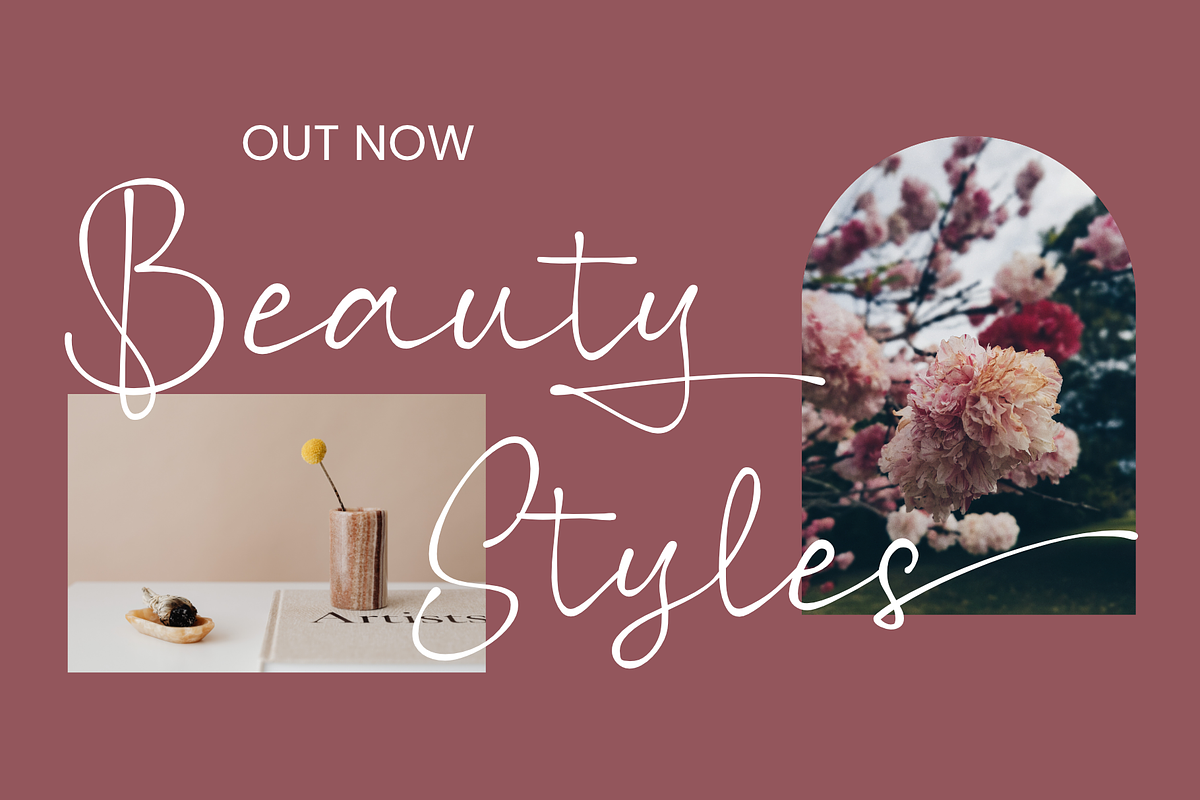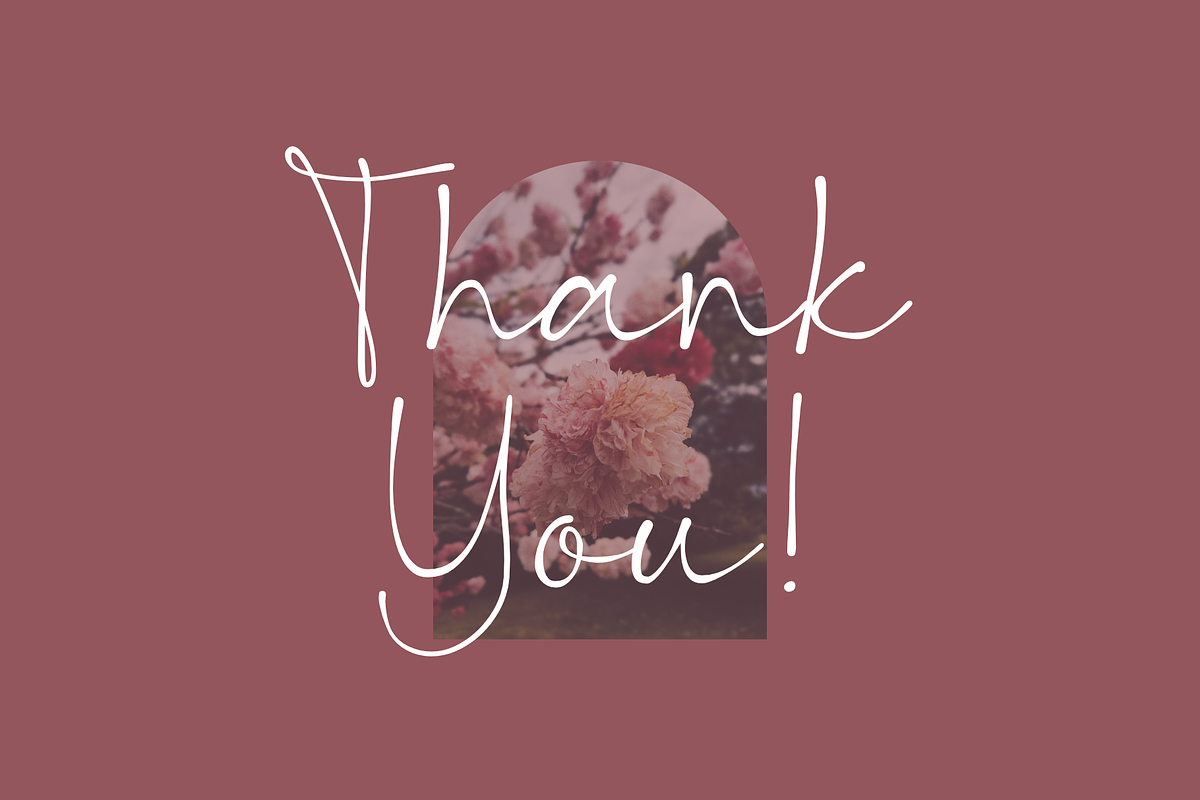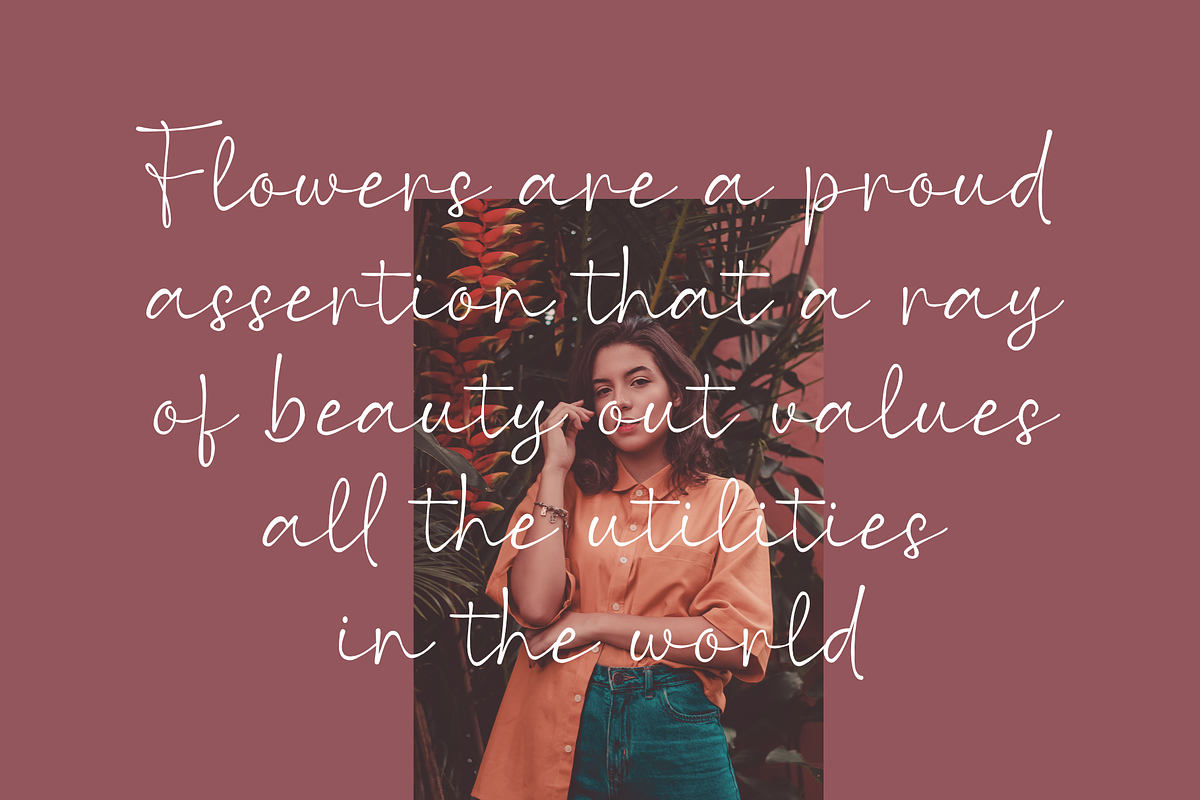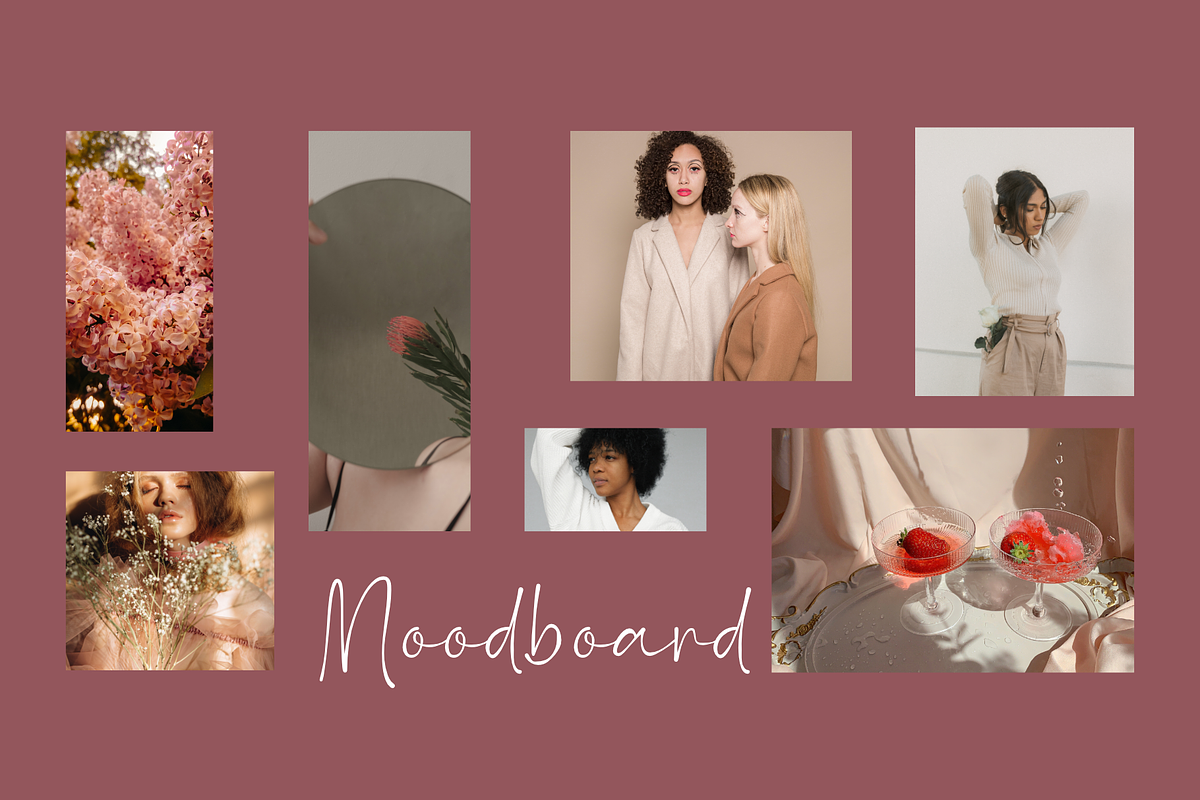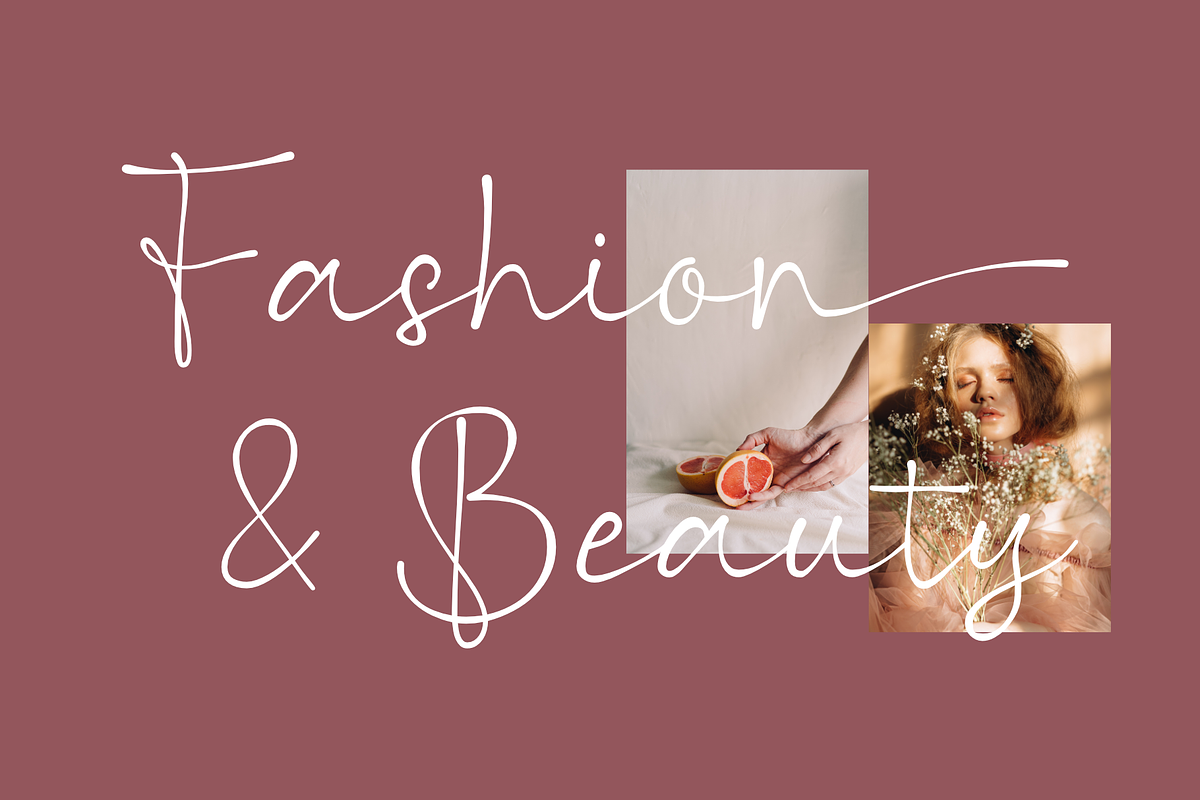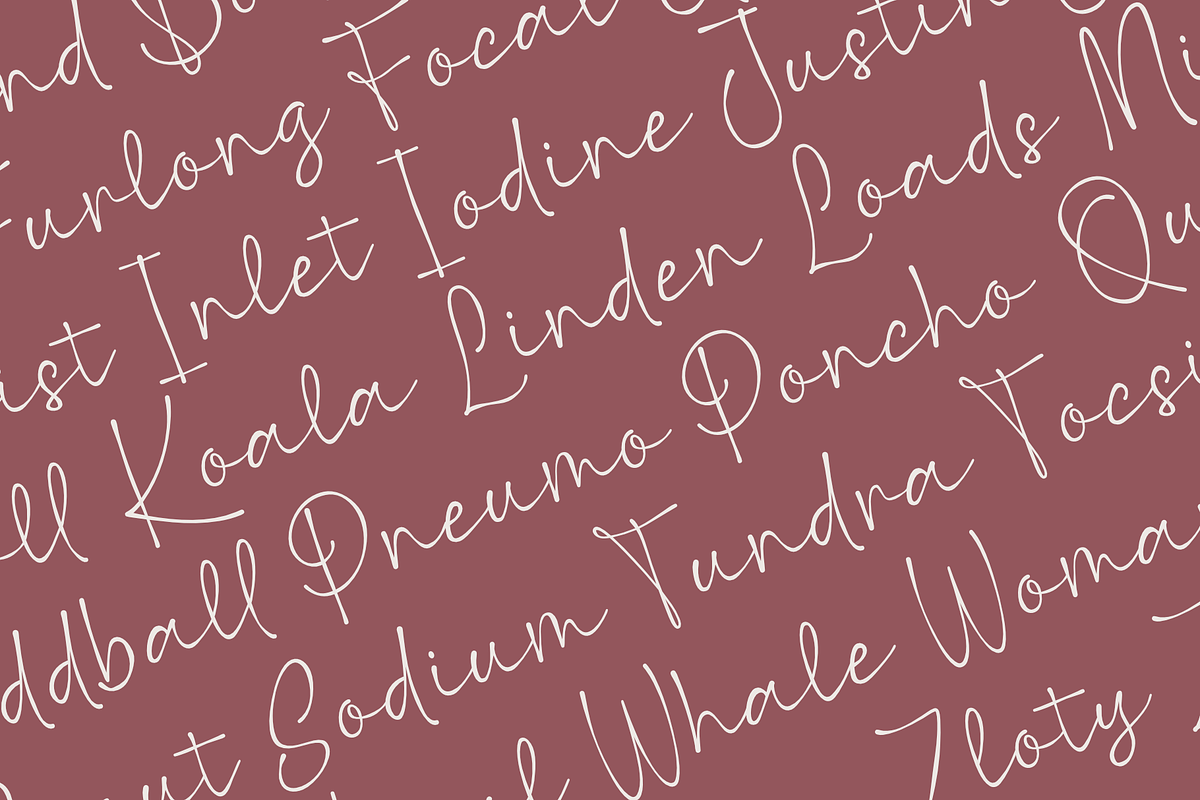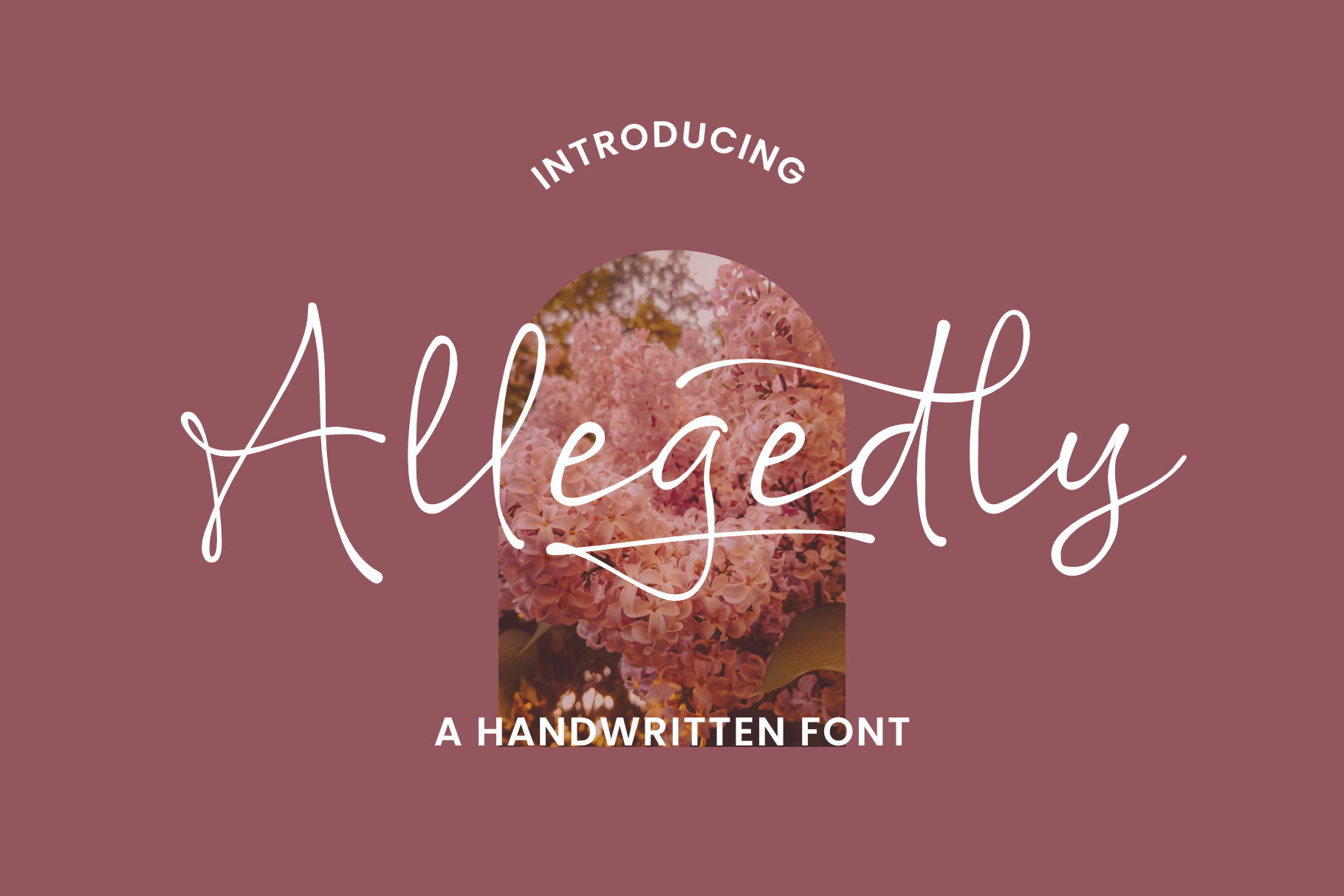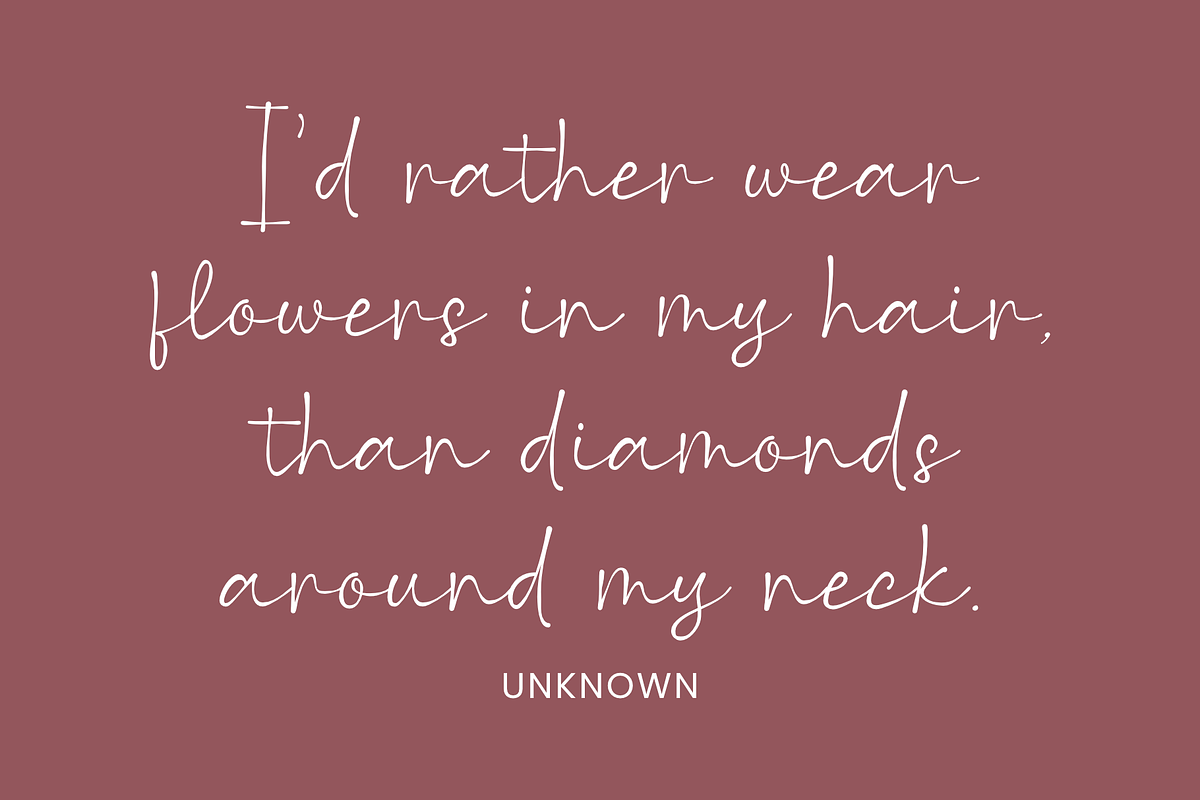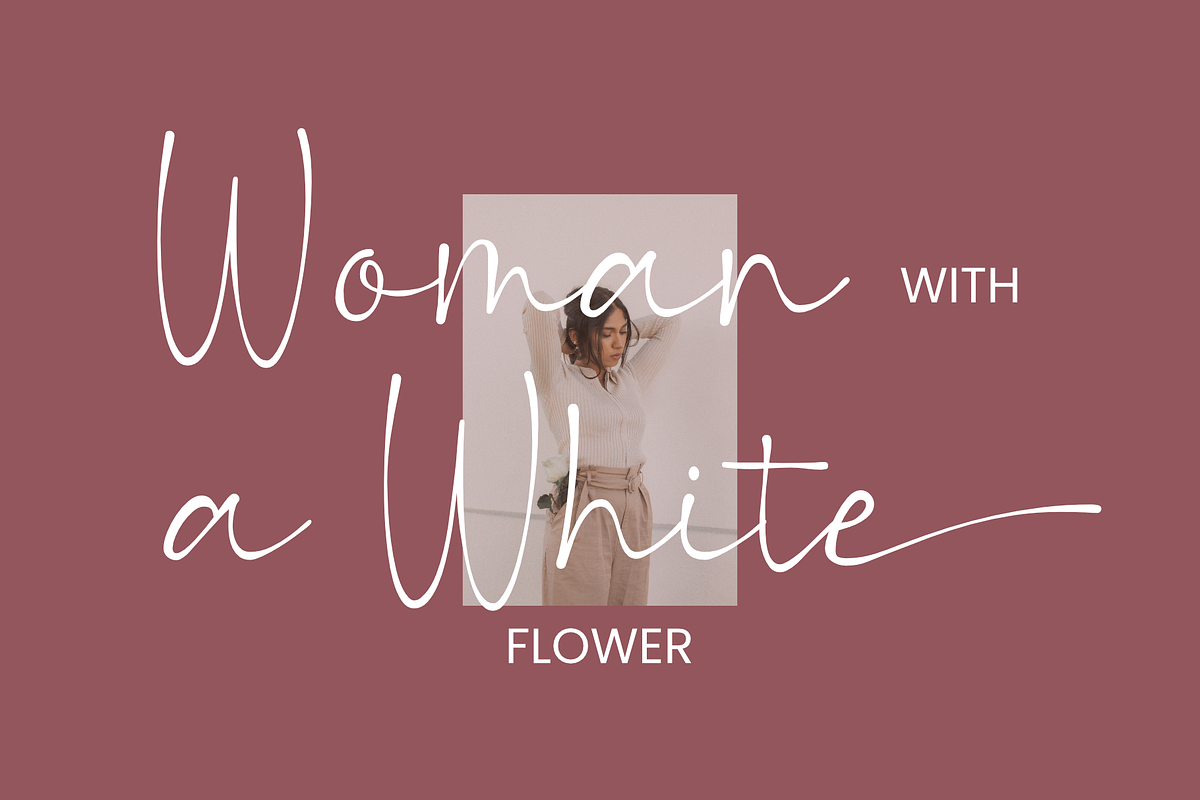
Allegedly - a Handwritten Font
Allegedly is a lovely handwritten script font. It has a natural writing style and will add a classy touch to your designs. It’s perfect for branding, photography, invitations, quotes, watermarks, advertisements, product designs, labels, and much more!